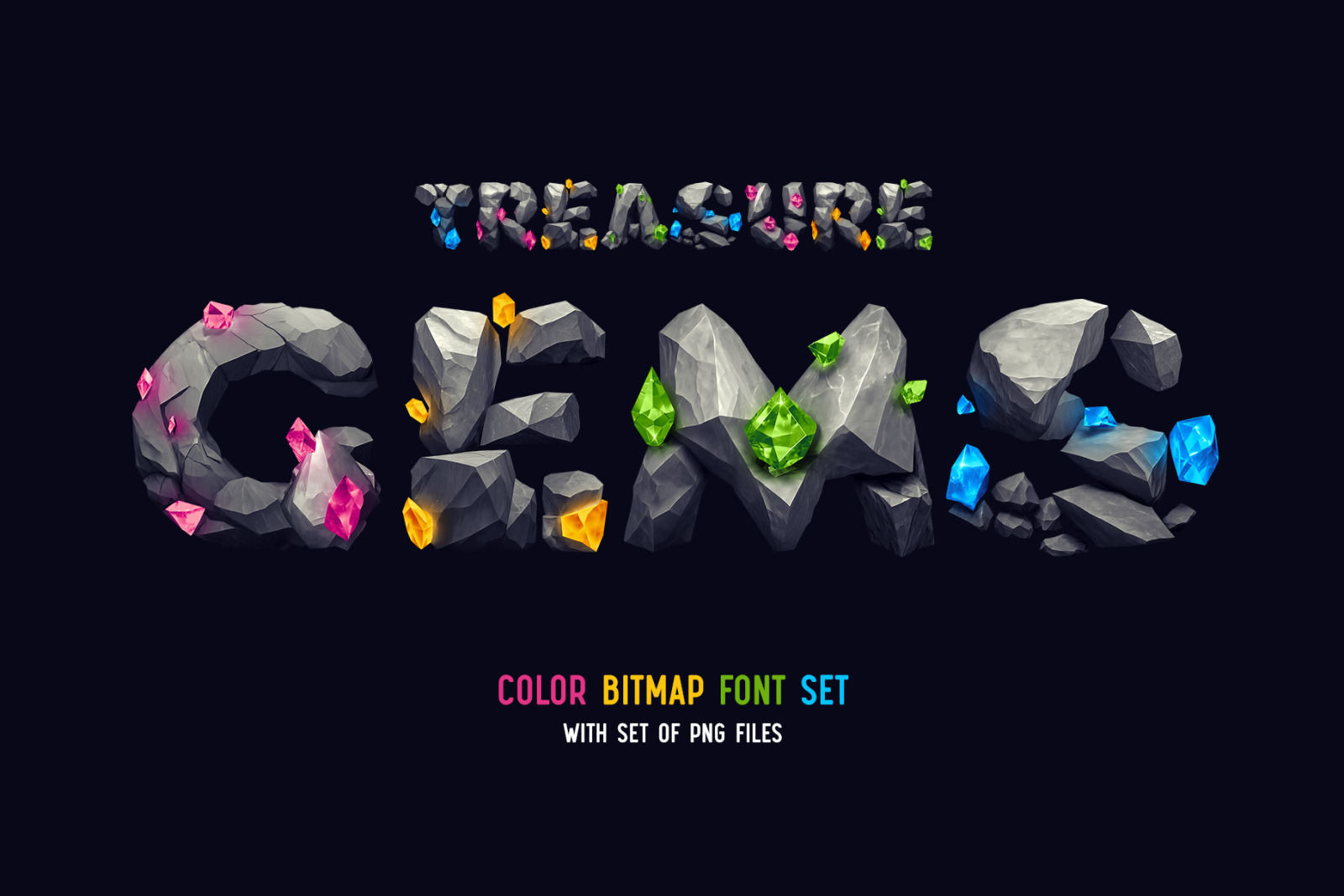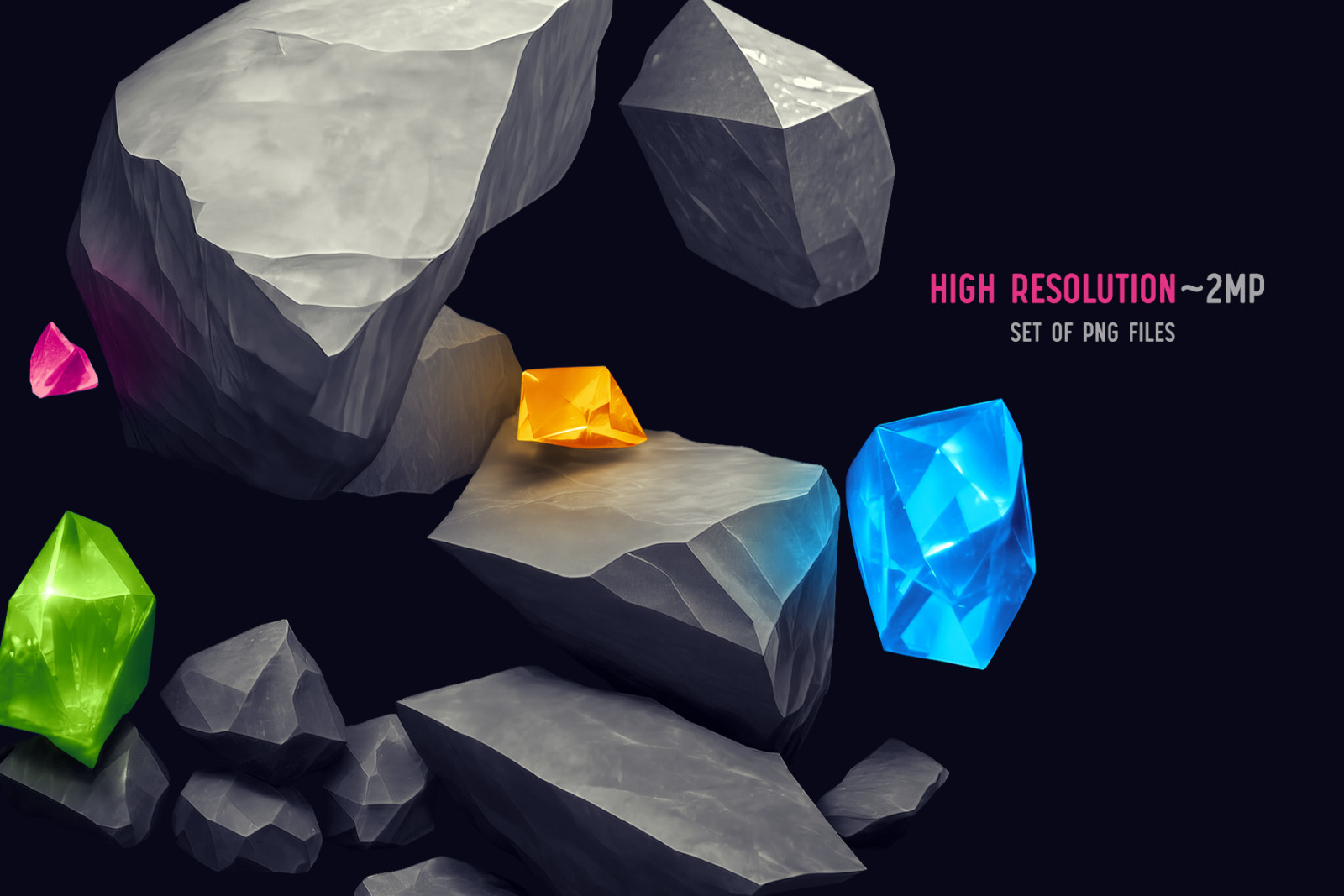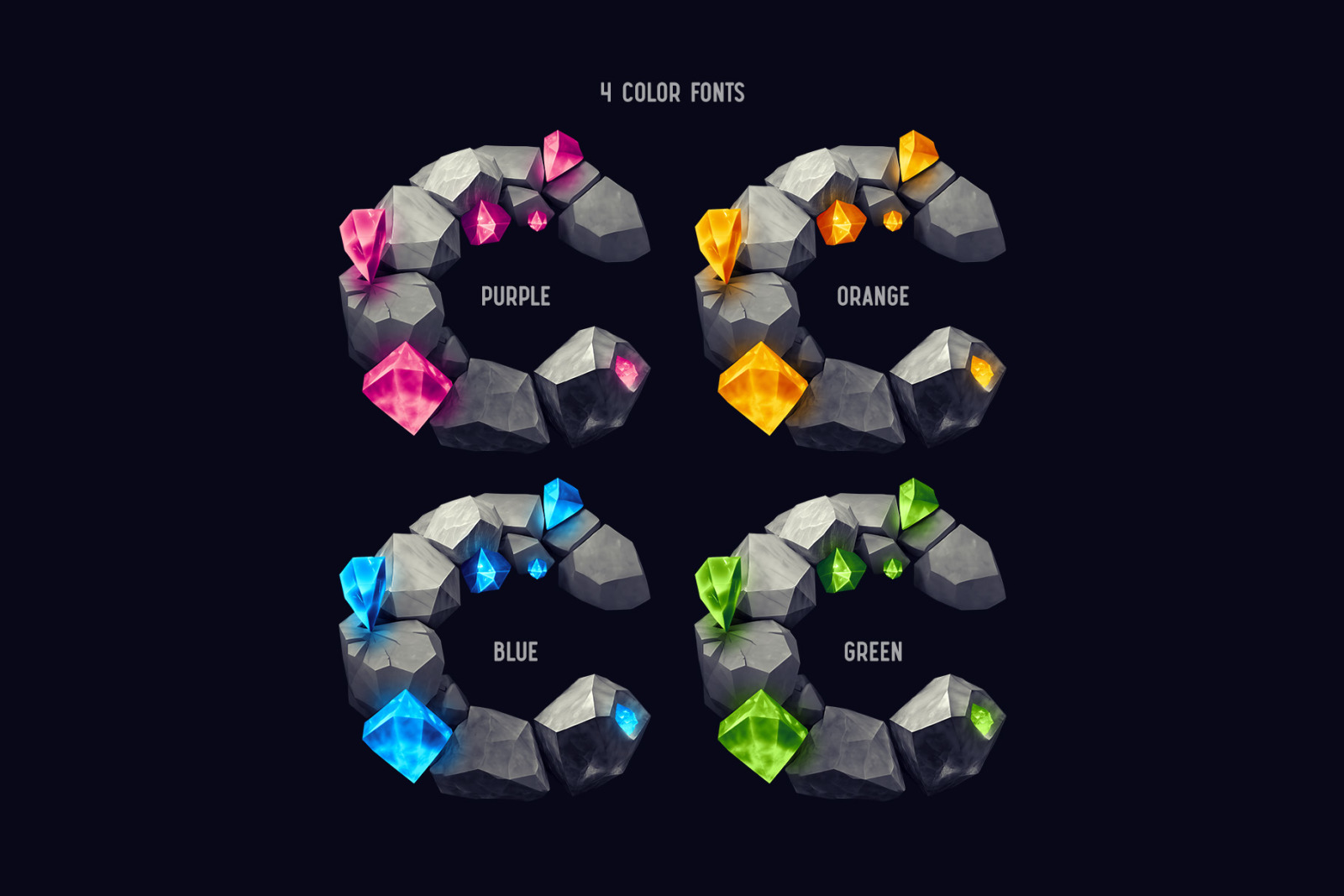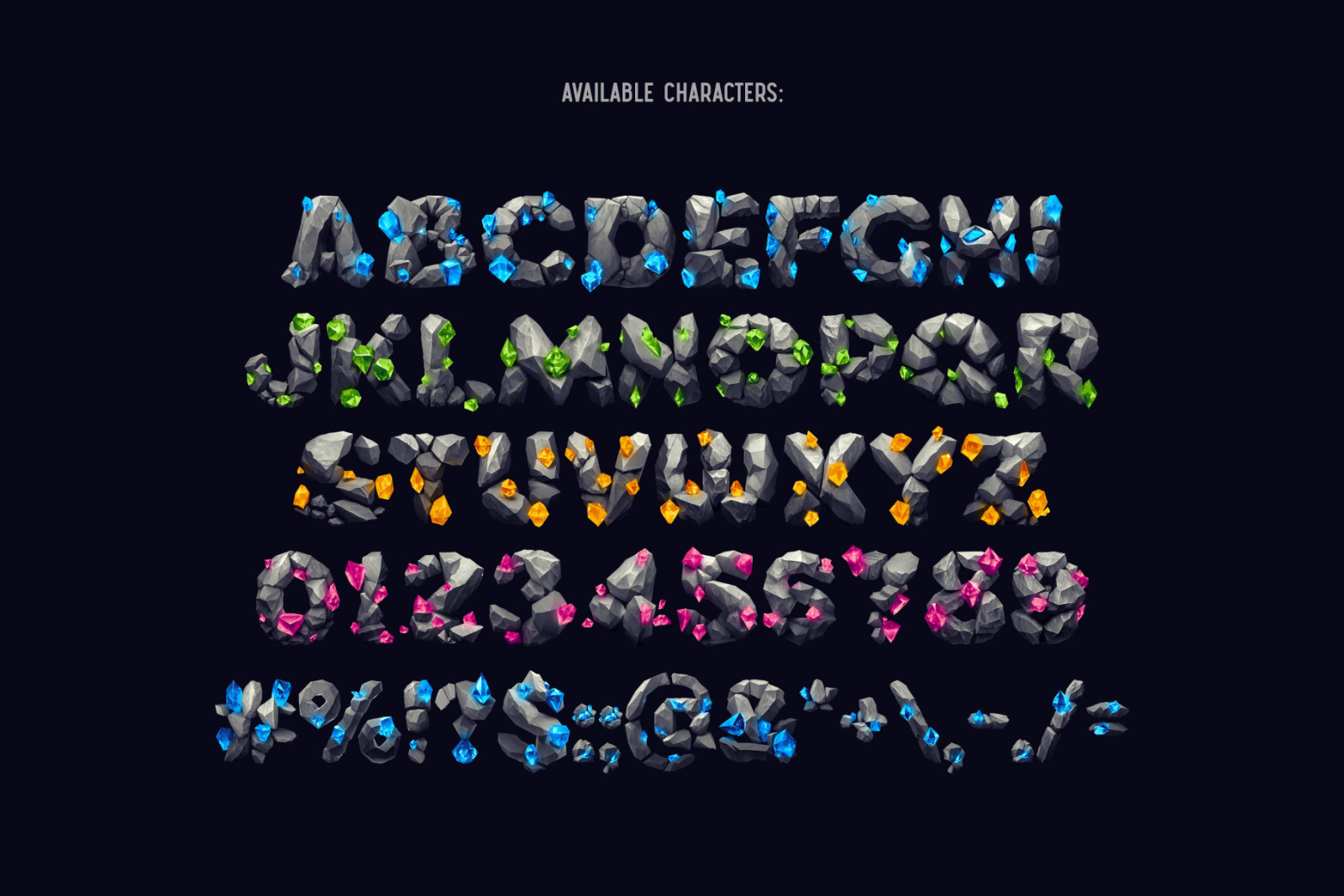
Treasure Gems - Color Bitmap Font
Hello! Presenting a magical style font set - Treasure Gems. It's a fantasy art typeface made of grey stones and glowing precious stones. Four colors are available in this set. First of all it's a color bitmap OpenType-SVG font that can be used as a usual OTF font. Also a set of full resolution PNG files with transparent background is included. Consider that only English language and basic punctuation is supported, please check out the screenshot with all available characters.